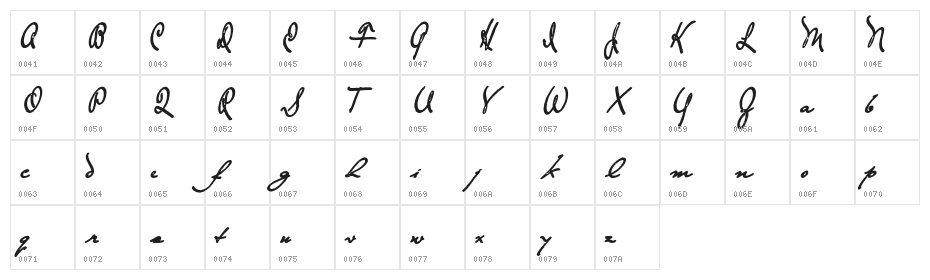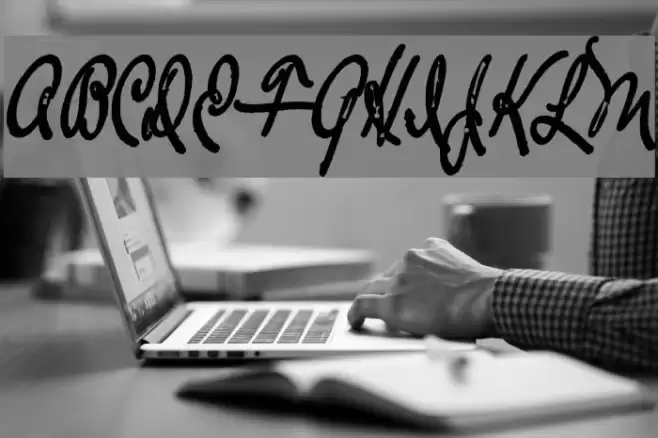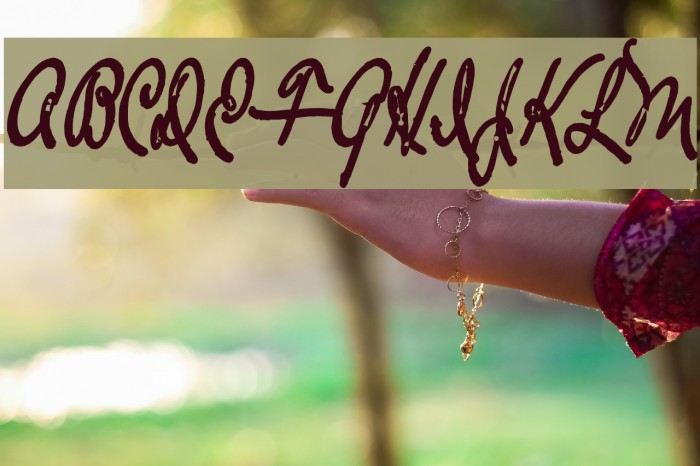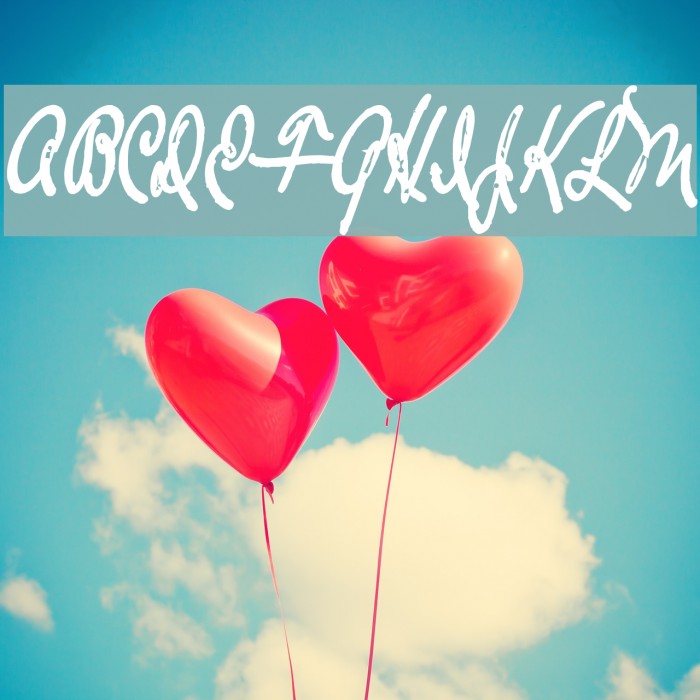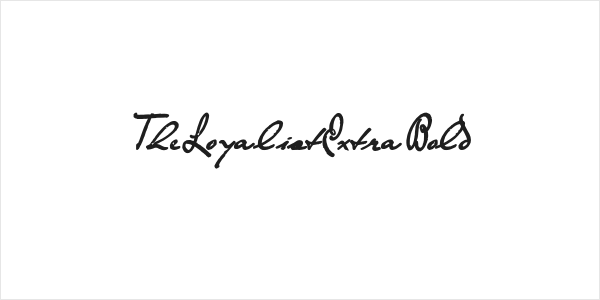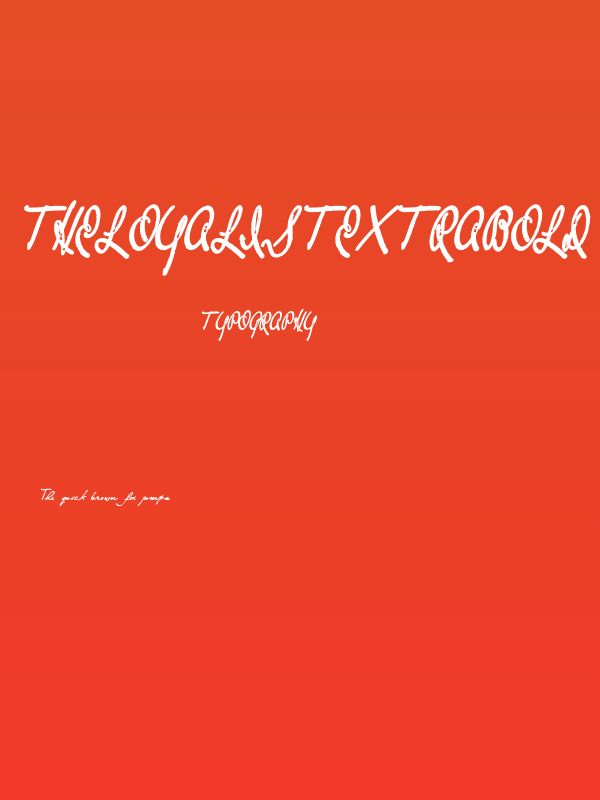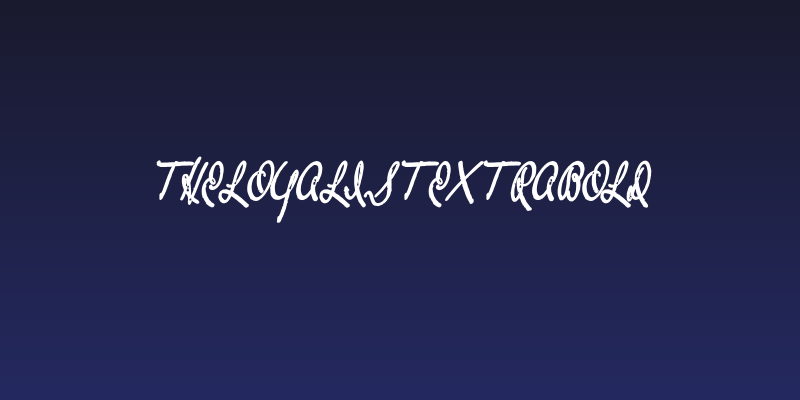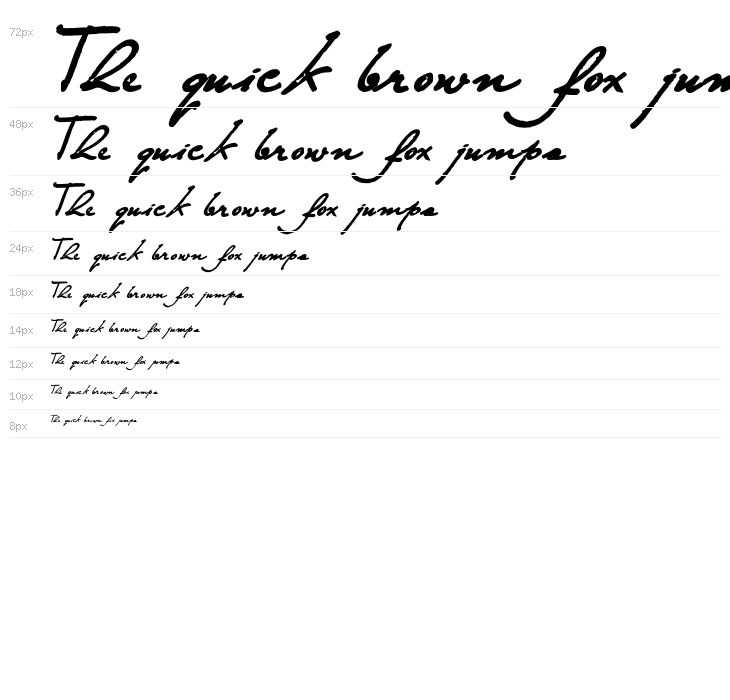
TheLoyalistExtraBold Font
TheLoyalistExtraBold Description
This font exhibits a dynamic and expressive handwritten style, characterized by its fluid and cursive letterforms. The strokes are bold and confident, with a noticeable slant that adds to its energetic appearance. The uppercase letters are particularly striking, with elaborate loops and flourishes that give a sense of movement and flair. The lowercase letters maintain a consistent flow, connecting smoothly to create a cohesive script. This font's overall aesthetic is both artistic and personal, making it ideal for projects that require a touch of elegance and individuality.
| Proposed Projects | Ideal for wedding invitations, personal branding, artistic posters, and greeting cards. |